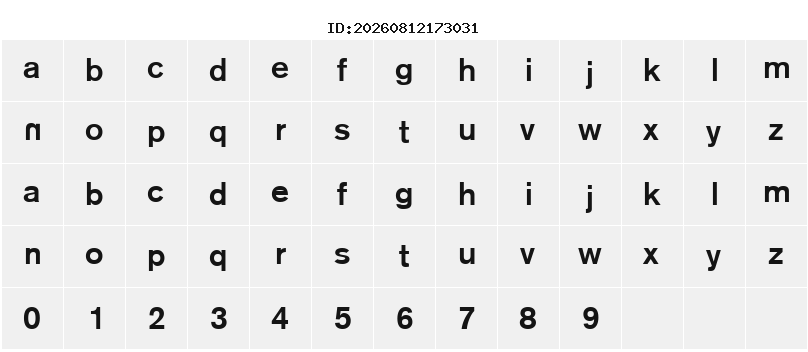
Reznor Preview
• Font Name: Reznor
• Font Style: Broken
• Full Font Name: Reznor Broken
• Copyright: This is the font found on the covers of the Nine Inch Nails CD's "Broken" and "Fixed"
About Reznor.ttf
Reznor.ttf is a modern, elegant sans-serif font designed for ultimate readability and visual harmony. Perfect for branding, headlines, web design, and print materials.